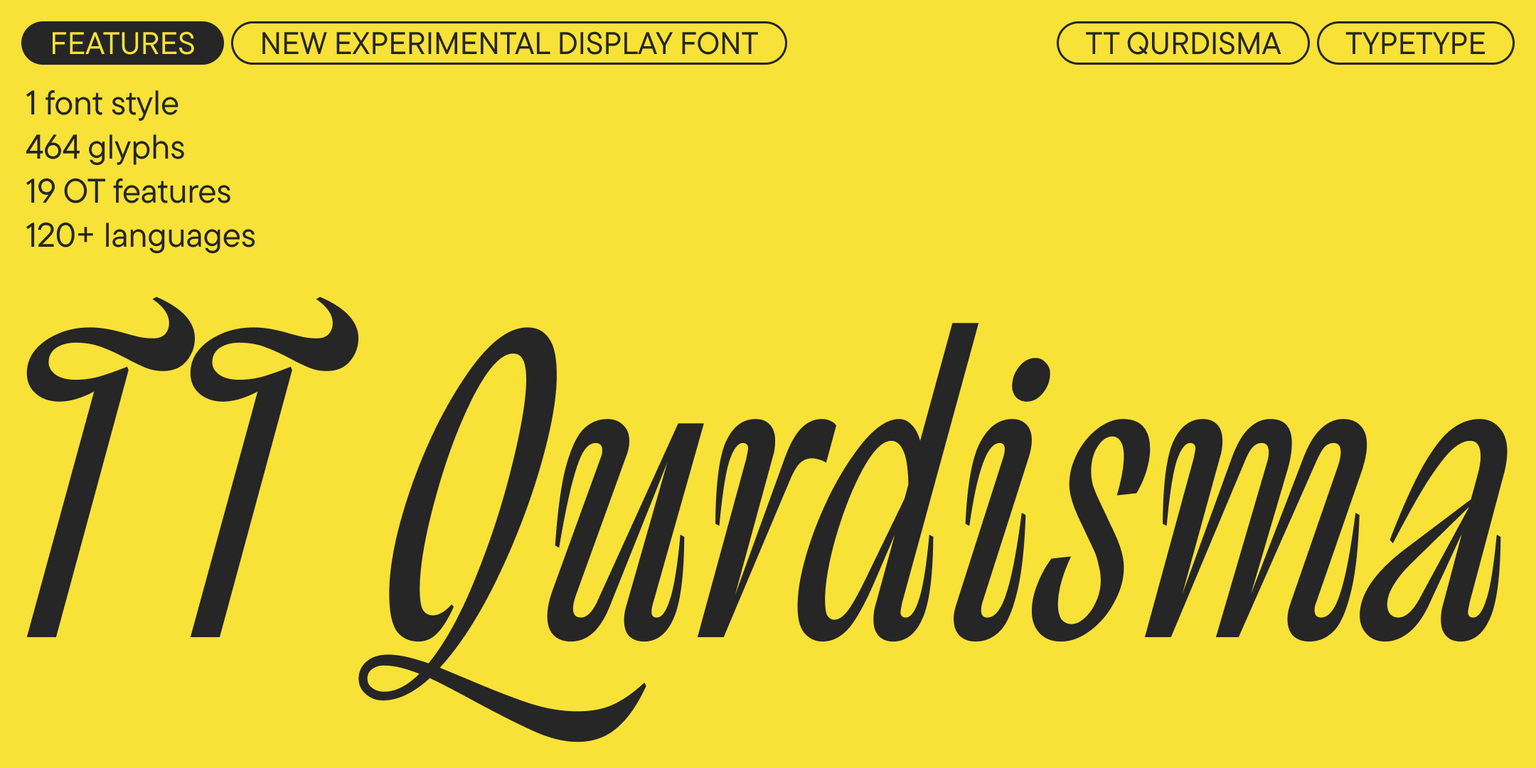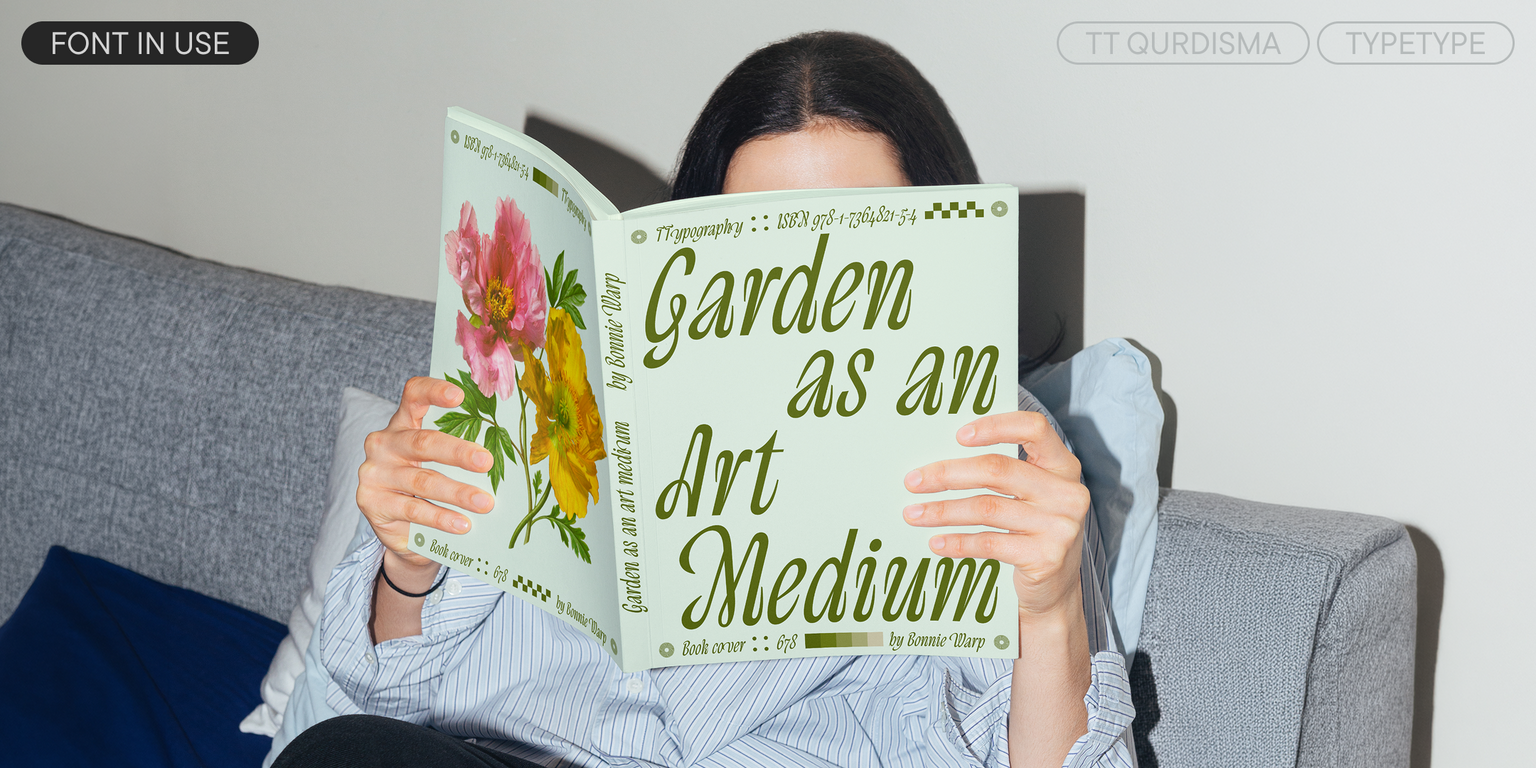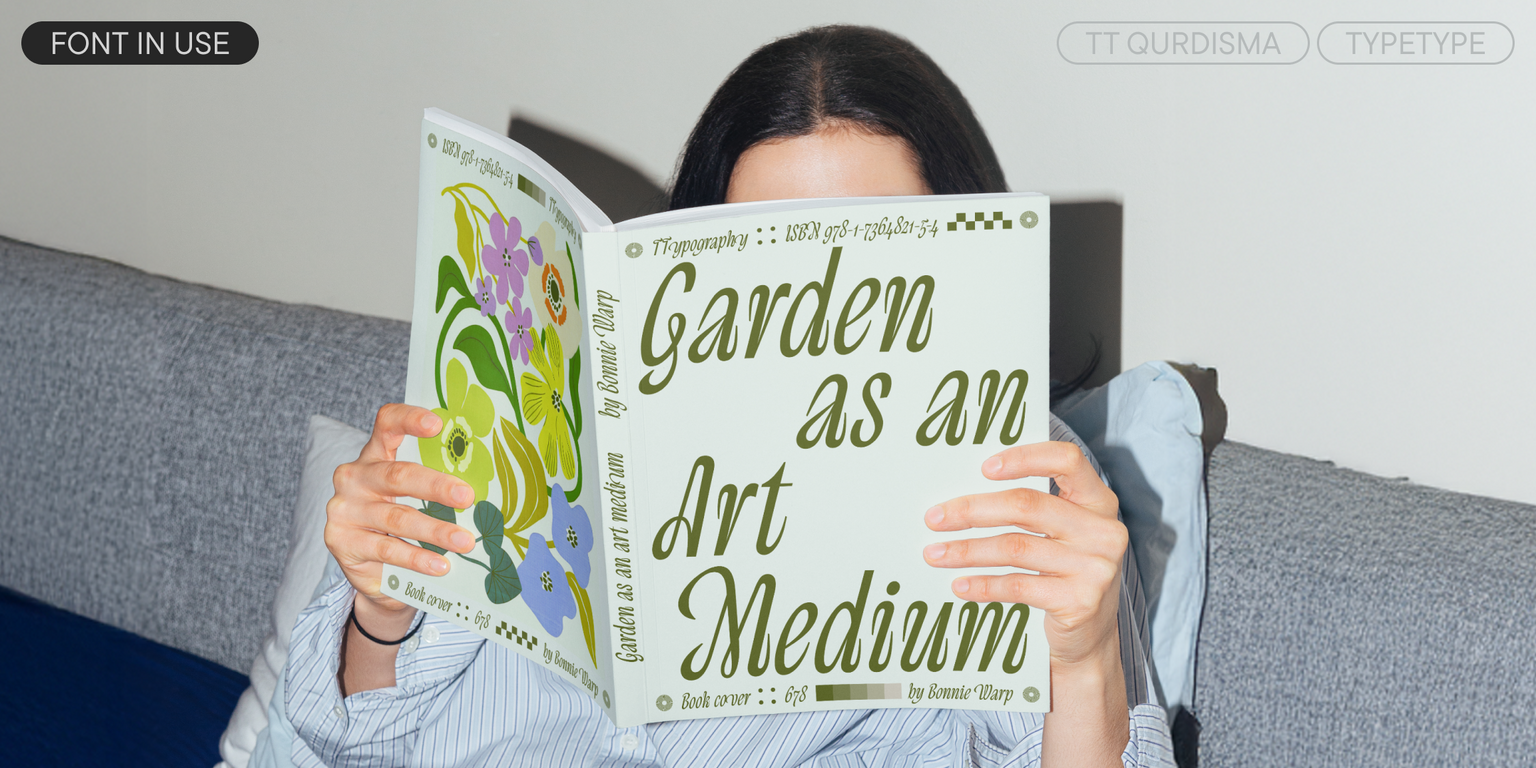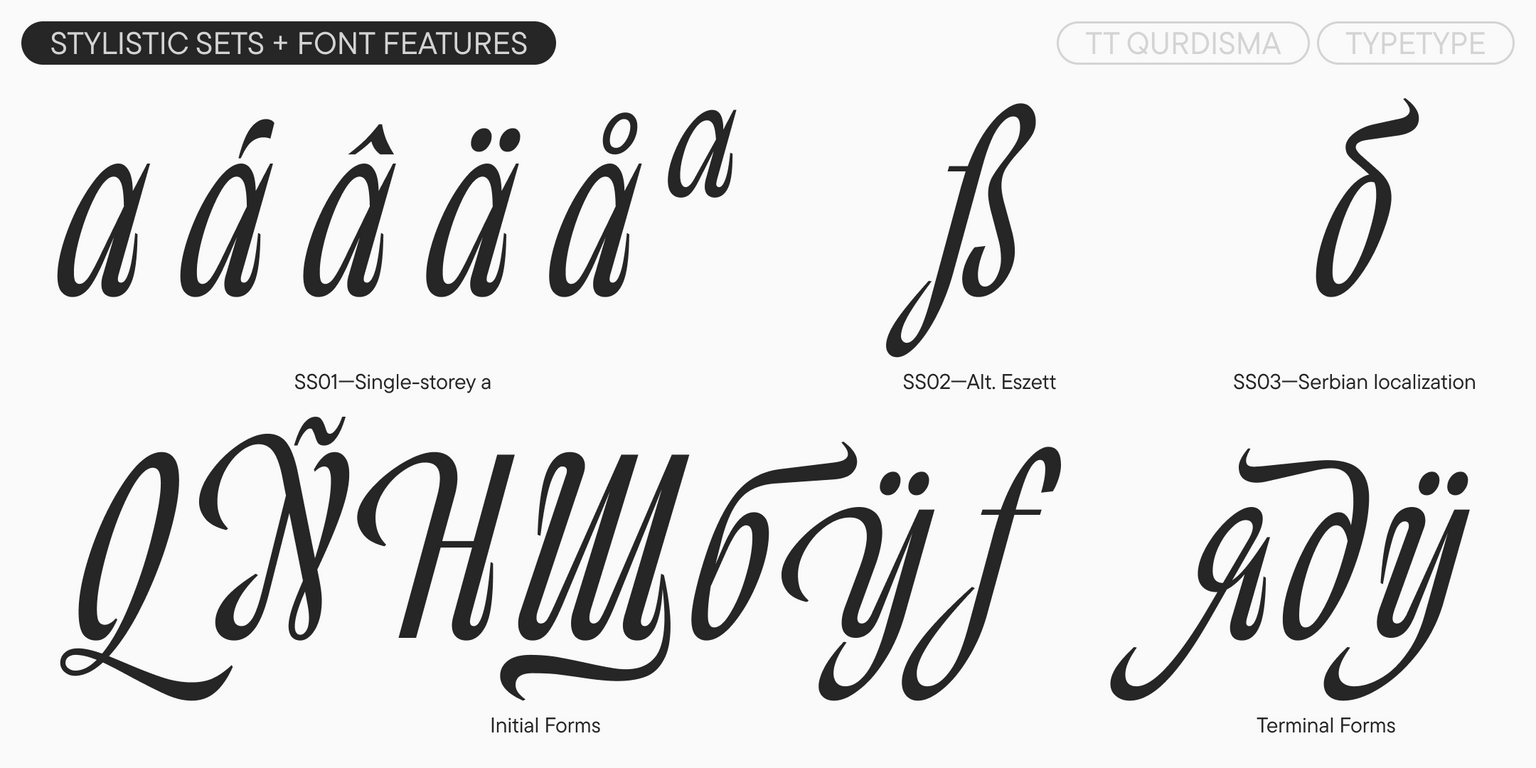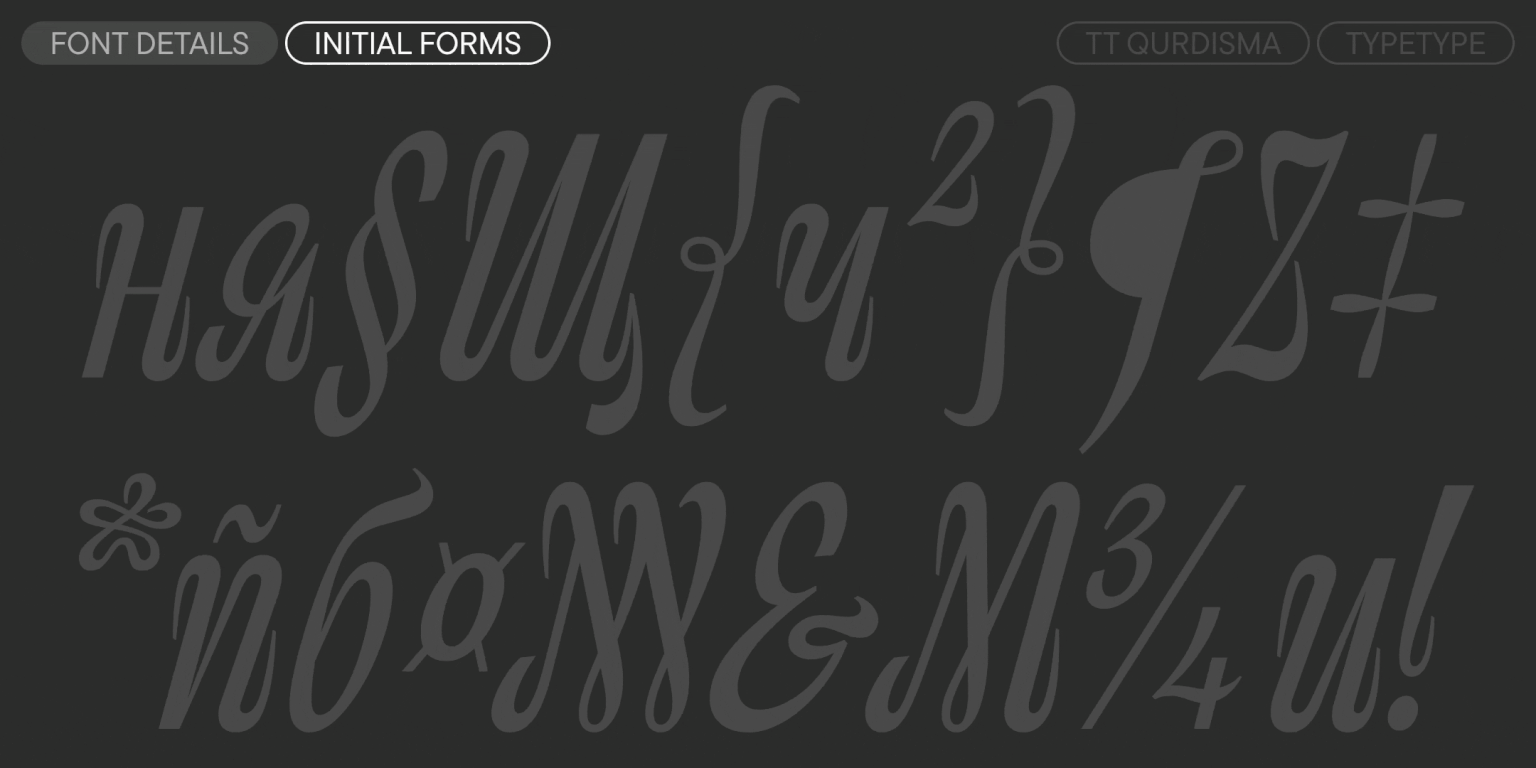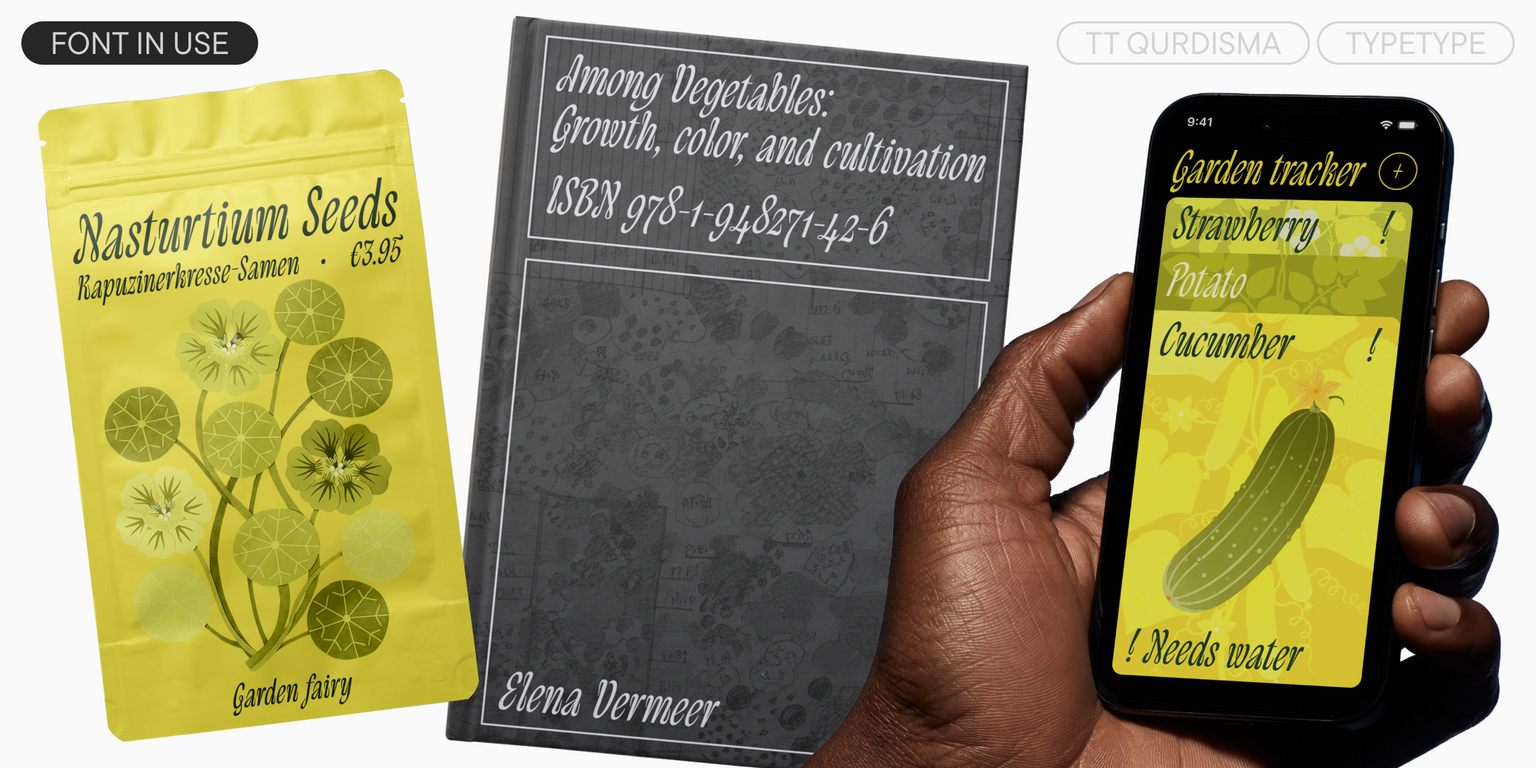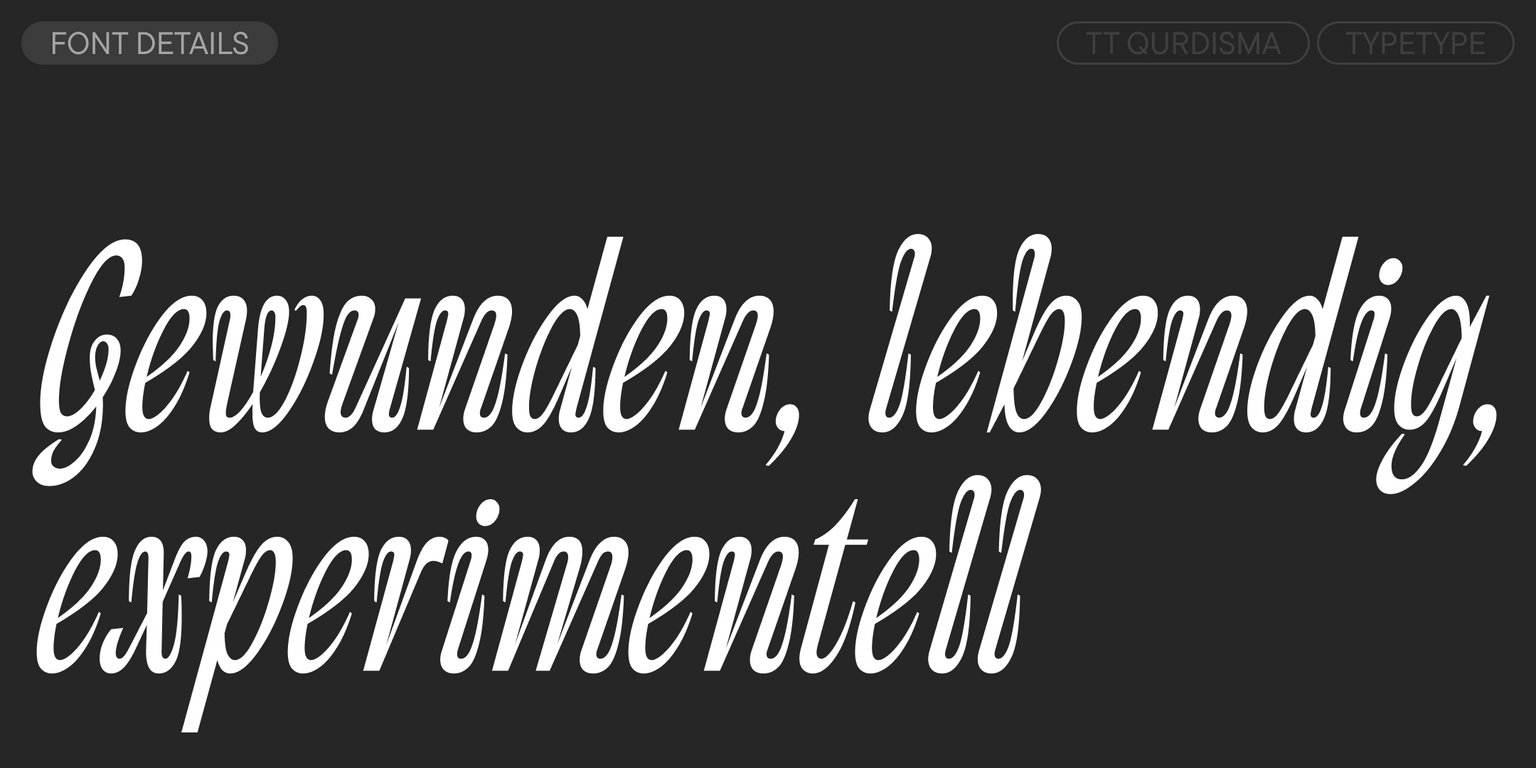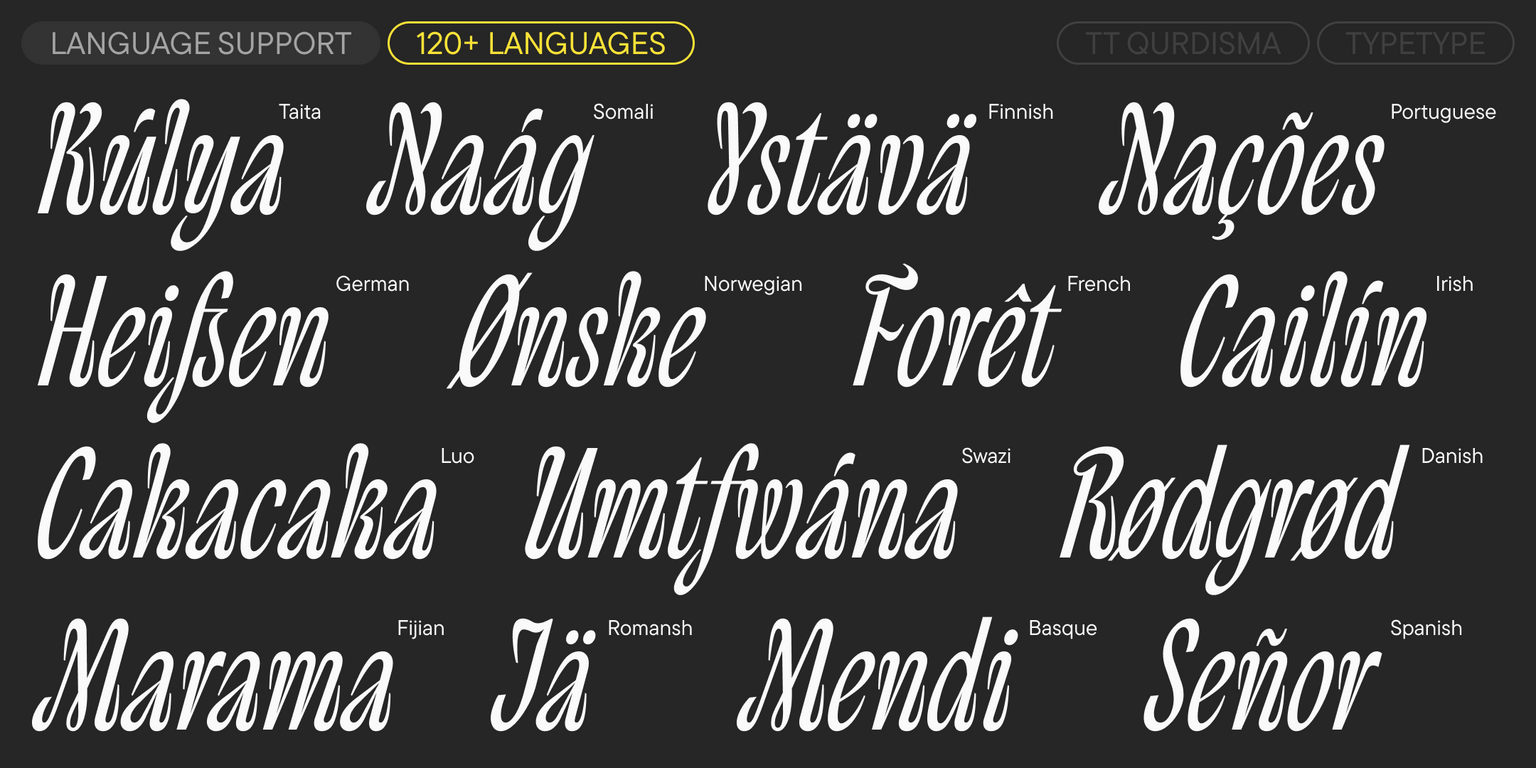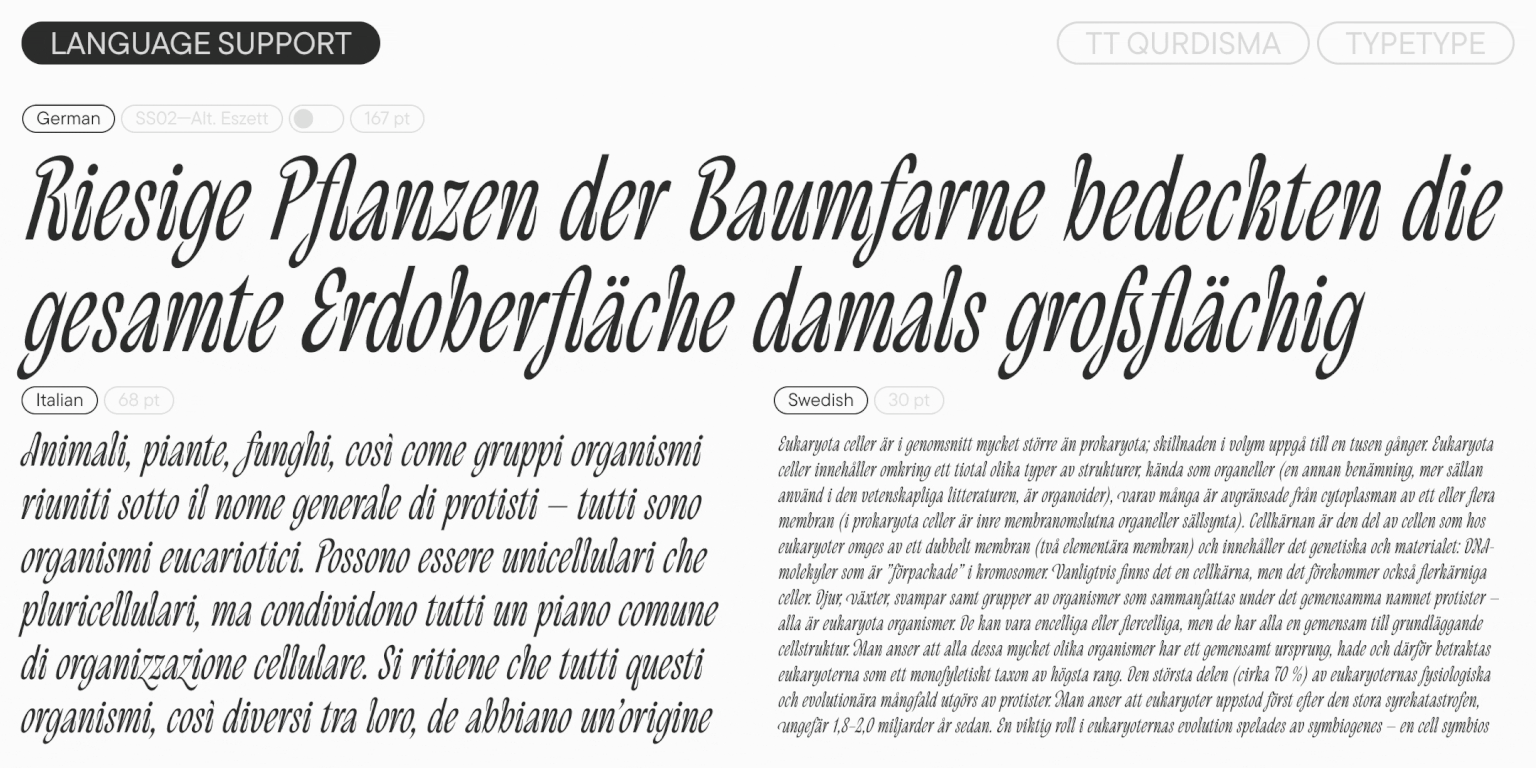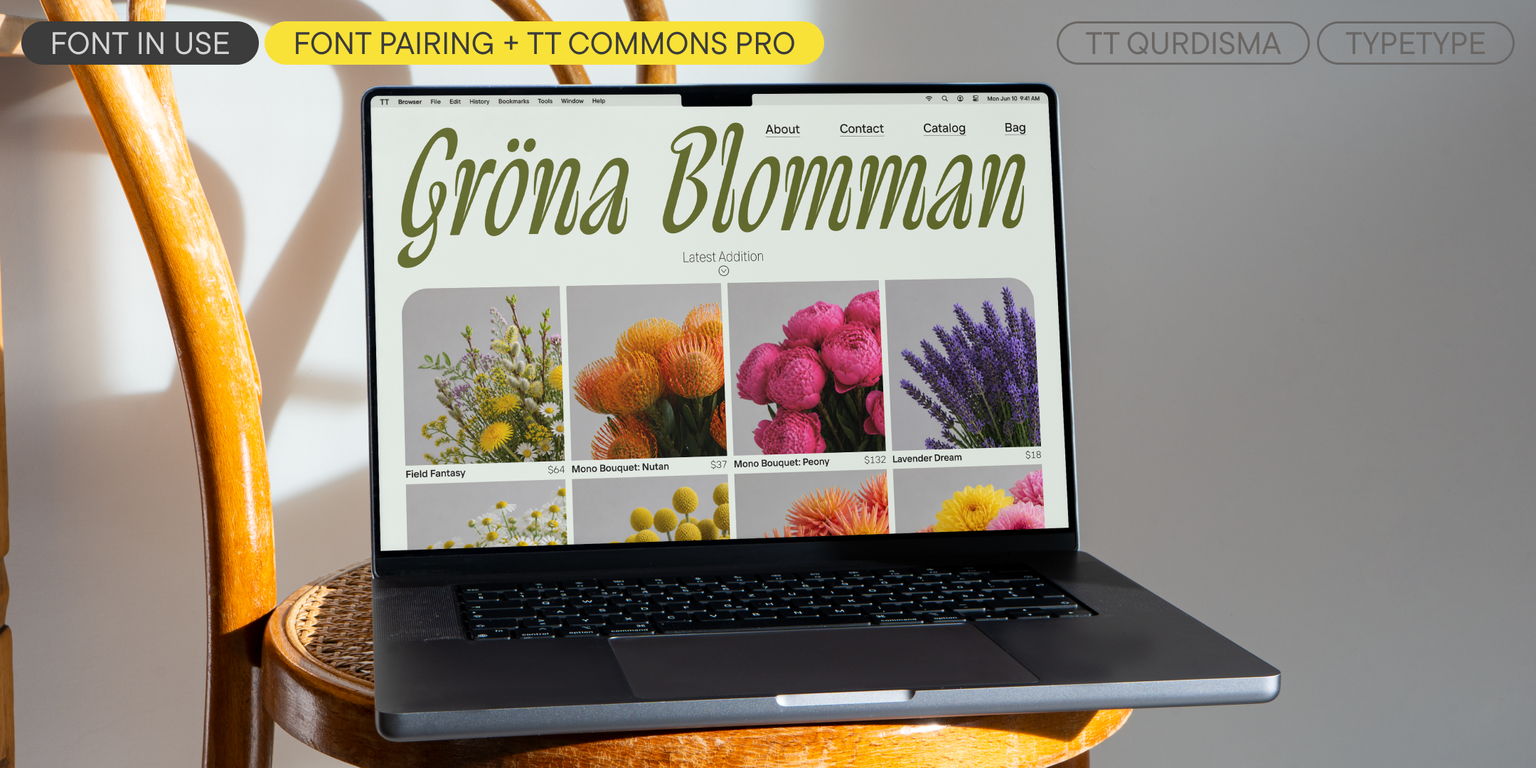
TT Qurdisma
TT Qurdisma is a narrow and dense decorative font reminiscent of a whimsical plant.
The winding, smooth contours give rise to a botanical ornament.
About font family TT Qurdisma
Meet the new TT Qurdisma—a sinuous and living font reminiscent of a whimsical plant!
TT Qurdisma is an experimental display font that sprouted in the greenhouse of our Creative Lab. The experiment was based on the idea of mixing two random parameters into a single concept: „tight spacing“ and „true italic.“ The result is a font with a functional character set and a unique personality full of beautiful details.
The typeface’s name comes from the Greek κούρδισμα (sinuous). It is a narrow, dense font with glyphs that twist inward. The design is inspired by flora (seaweed, ferns, succulents). The winding, smooth contours give rise to a botanical ornament. The round characters are more slanted than the upright ones, adding even more dynamism. The uppercase letters have a more complex rhythm due to their twisted forms and abundance of loops, while the lowercase letters look calmer, as they frequently repeat a similar element—an arch with a „tentacle“ at the end of the stroke.
The font consists of one italic font style, the graphics of which reference the forms of a true italic. The letter „a“ in the base set is double-story, but there is a stylistic set with a single-story version. We also added two versions of the eszett (ß), swash alternates for certain letters, and ligatures.
TT Qurdisma is a decorative font ideally suited for fashion, special cultural projects, or branding.
TT Qurdisma includes:
• 1 italic style
• 464 glyphs
• 19 OpenType features
• Support for over 120 languages
ss01 | Single-storey a
init | Initial Forms
fina | Medial Form #3
liga | Standard Ligatures
dlig | Discretionary Ligatures
ss02 | Alt. Eszett